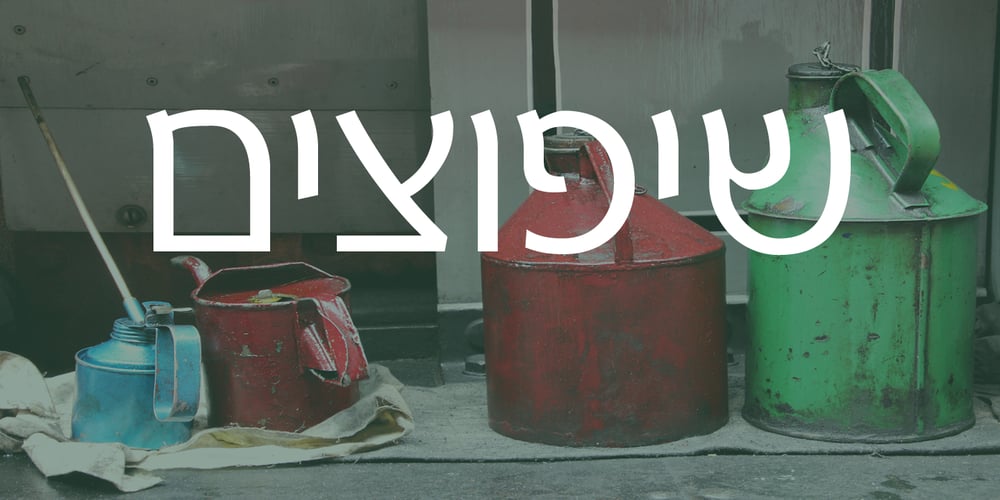
Agudal MF
Agudal MF font
Agudal MF Font Family was designed by Zvika Rosenberg and published by Masterfont. Agudal MF contains 2 styles and family package options. Fresh text font that will serve as title, signage etc.